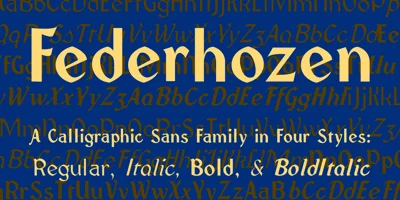
Federhozen Font
Federhozen Font is ideal for German beer festival branding, Oktoberfest event materials, traditional Alpine restaurants, Bavarian cultural celebrations, European heritage projects, authentic German brewery identity, folk festival graphics, traditional lederhosen shops, German tourism campaigns, and festive applications that celebrate authentic Germanic culture and traditional European hospitality.
What makes Federhozen Font truly exciting is its authentic representation of Germanic tradition and Alpine cultural heritage that captures the hearty spirit and festive atmosphere of traditional German celebrations and mountain culture. This exceptional typeface embodies the essence of European folk tradition with its robust letterforms and jovial character that convey both cultural authenticity and celebratory warmth. The font's Alpine personality and Germanic heritage make it perfect for brands seeking to communicate traditional values, cultural pride, and the joyful hospitality that defines authentic German and Austrian cultural experiences.
The Federhozen Font family includes multiple weights and styles: Regular, Bold, Light, Festive, and Traditional variations designed for maximum cultural impact. Each family member maintains the distinctive Germanic character while offering flexibility for diverse cultural applications and traditional branding systems. The comprehensive character set supports European typography needs and cultural design elements, making it suitable for international Germanic heritage communications.
When you choose Federhozen Font, you're selecting a typography celebration that delivers authentic Germanic credibility and traditional European charm to every cultural project. This festive typeface excels in applications where cultural authenticity and traditional celebration are paramount, delivering exceptional Alpine appeal while maintaining Germanic legitimacy. Whether you're designing beer festival brands, German cultural events, traditional restaurants, or heritage tourism materials, this font provides the Germanic authenticity and Alpine celebration that resonates with audiences who appreciate traditional European culture, authentic hospitality, and the joyful spirit of time-honored Germanic festivals and mountain traditions.